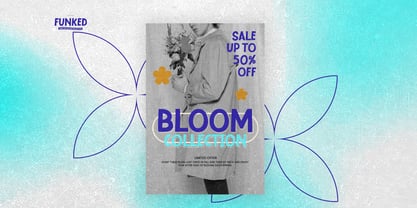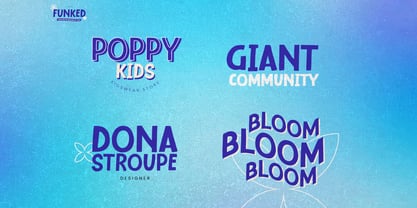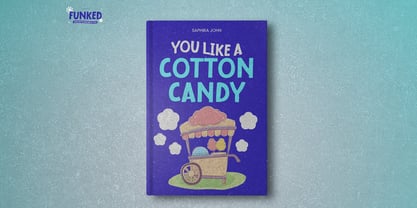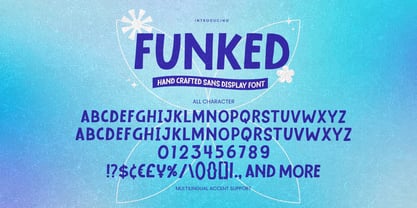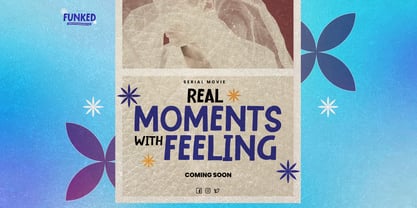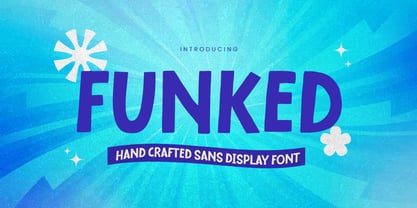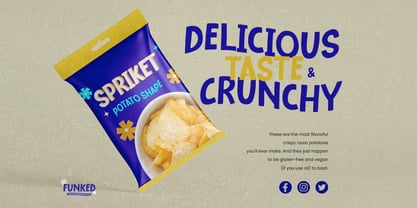
Funked
por Gassstype
La familia tipográfica Funked fue diseñada por Abdul Malik Wisnu y publicada por Gassstype. Funked contiene 1 estilos. Más información sobre esta familia
Introducing our new product, Font Funked Hand Crafted Sans Display Font. This textured natural style boasts a classy and clear aesthetic. Font Funked is perfect for your next creative project, including logos, printed quotes, invitations, cards, product packaging, headers, logotypes, letterheads, posters, and more. This font is ideal for watermarking photography and is excellent for logos and branding, advertisements, product designs, stationery, wedding designs, labels, and special events. It adds a charming, authentic, and relaxed characteristic, giving a more natural look to your text.
Diseñadores: Abdul Malik Wisnu
Fundición: Gassstype